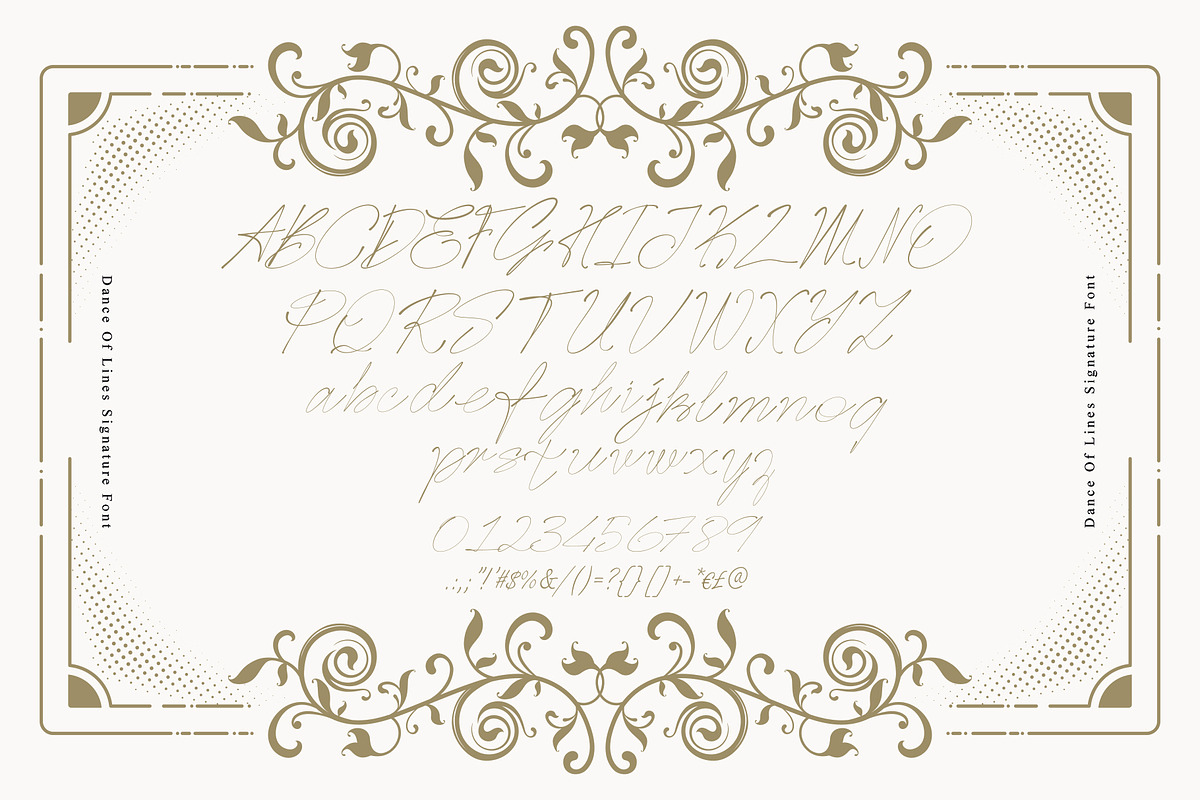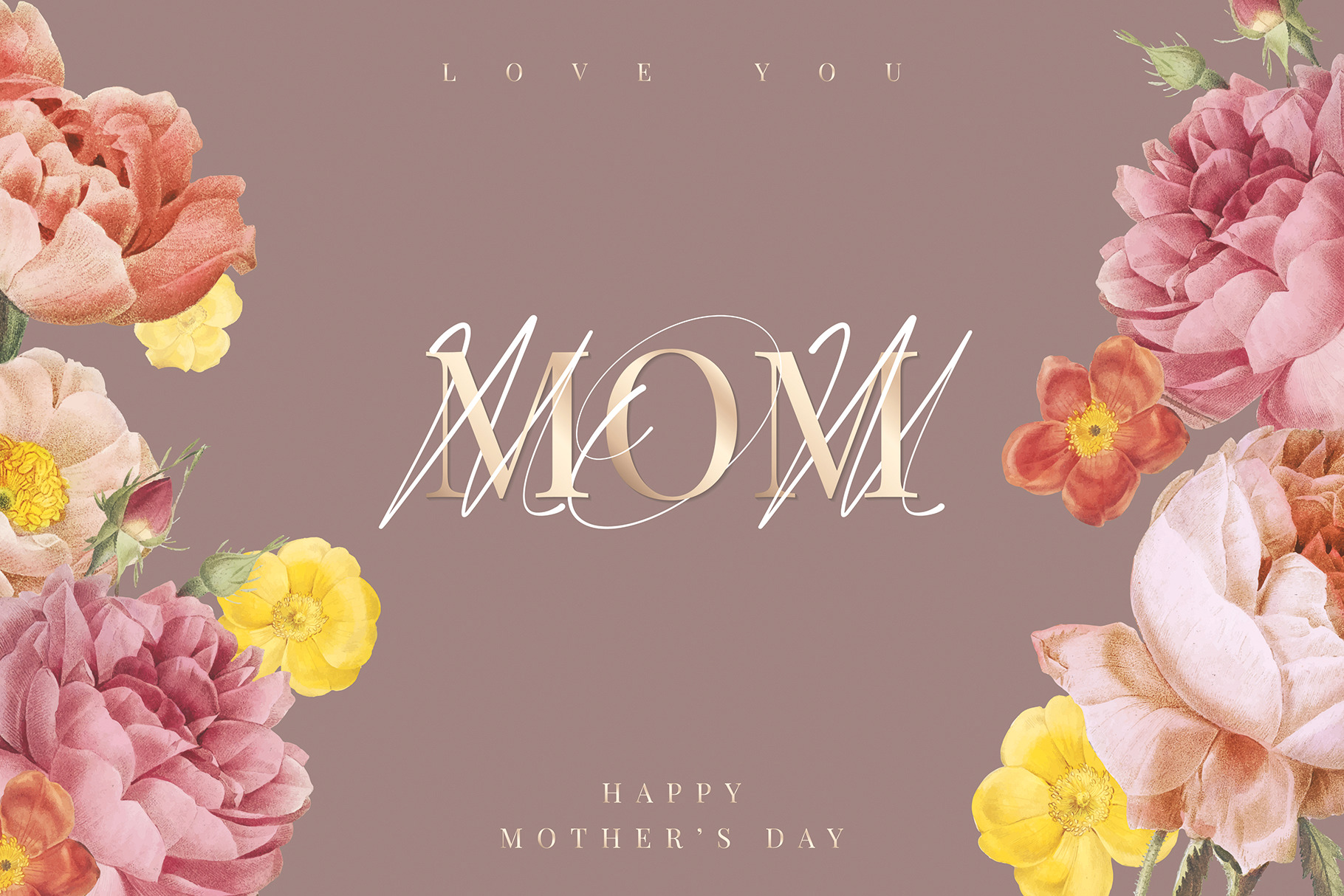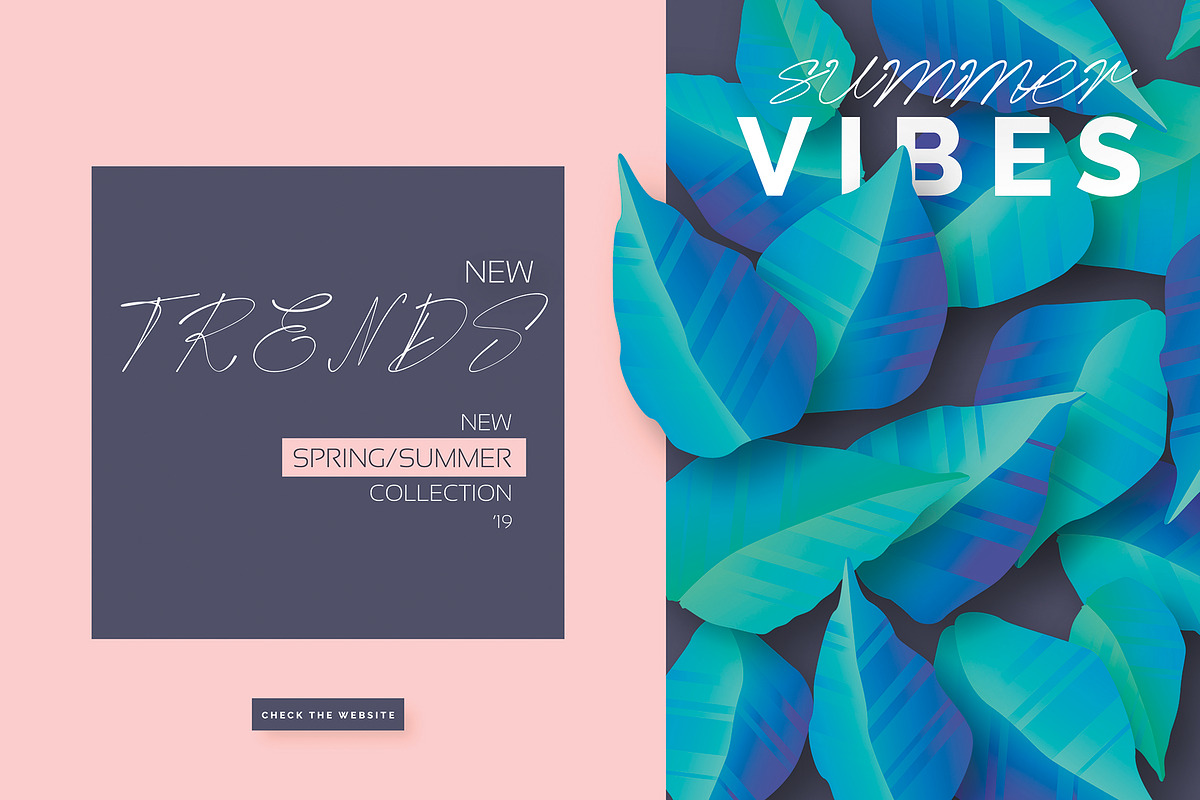
Dance Of Lines Signature Font
It is the perfect signature font for your carefully designed professional projects.
Dance Of Lines typeface is suitable for any design needs, modern invitation design, branding, blog design, modern advertising design, invitation, Art Quote, Home decor, Book/Cover Title, Invitation, special events, birthday, custom mug, pillow, t-shirts, any brush lettering needs and more.